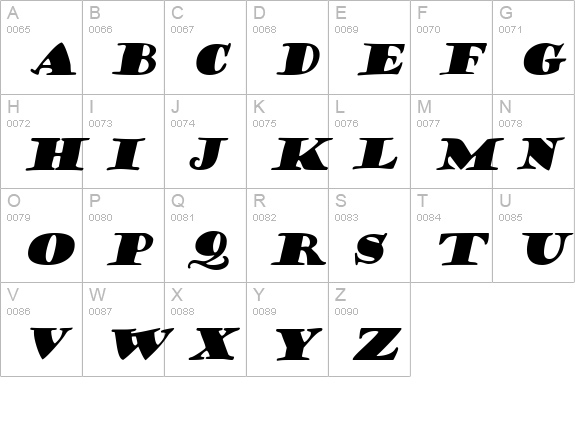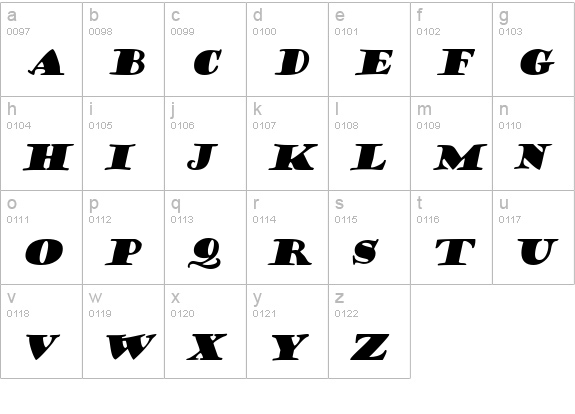
Hermann Bold Italic is a strong, high-contrast, italic variant in the Hermann typeface family \xE2\x80\x94 well suited to headlines, attention-grabbing titles, and strong calls-to-action.
Introducing Hermann Bold Italic font - a striking and versatile typeface that exudes elegance and sophistication. The bold and italicized design of Hermann makes it perfect for creating eye-catching headlines, branding materials, invitations, and more. Its clean lines and modern style give any project a touch of class and professionalism. What's even better is that Hermann Bold Italic font is available for free download at FontsMarket.com! This means you can easily access this premium quality font without any cost. Don't miss out on adding Hermann Bold Italic to your font collection and elevate your design projects to the next level. Download it now and start creating stunning visuals today!